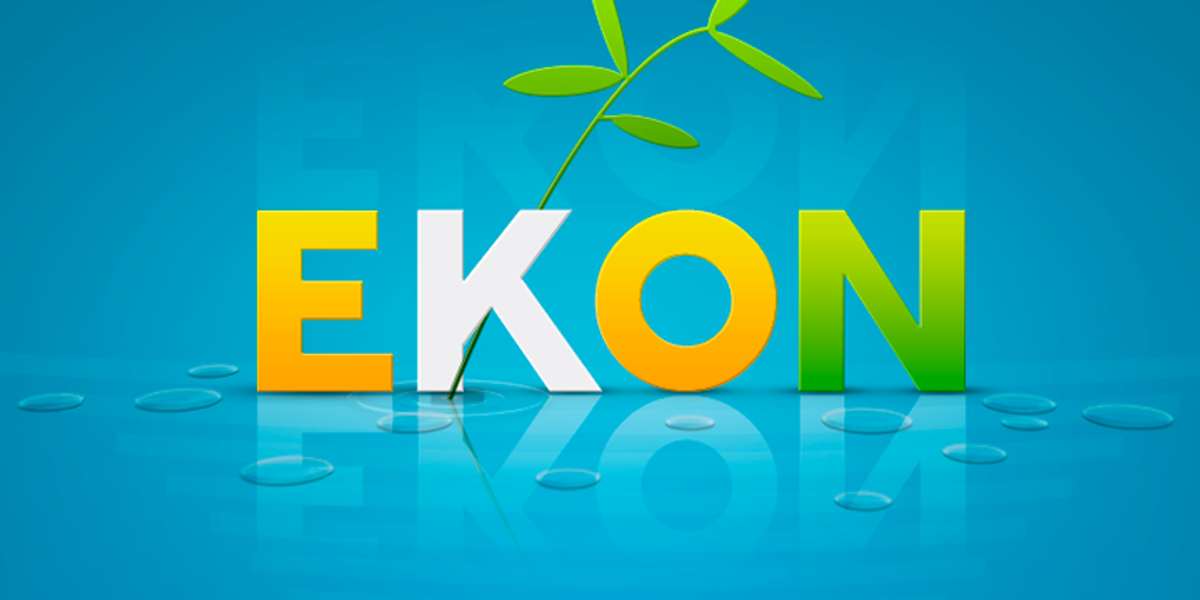
Ekon
Ekon has become a popular typeface for logos and headers, especially capital letters. It is based on three weights and does not have italic forms (to date). Its style is sans serif, clean, and basic.